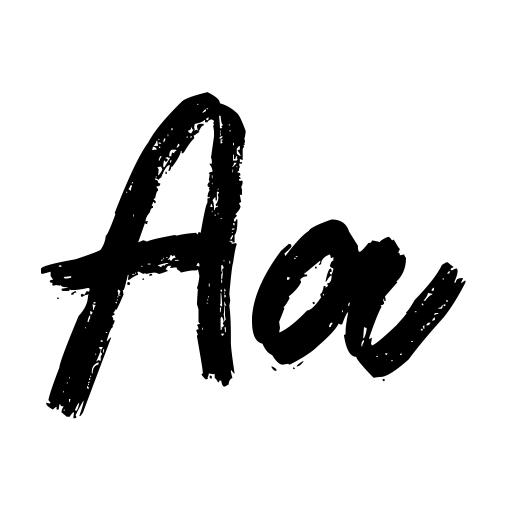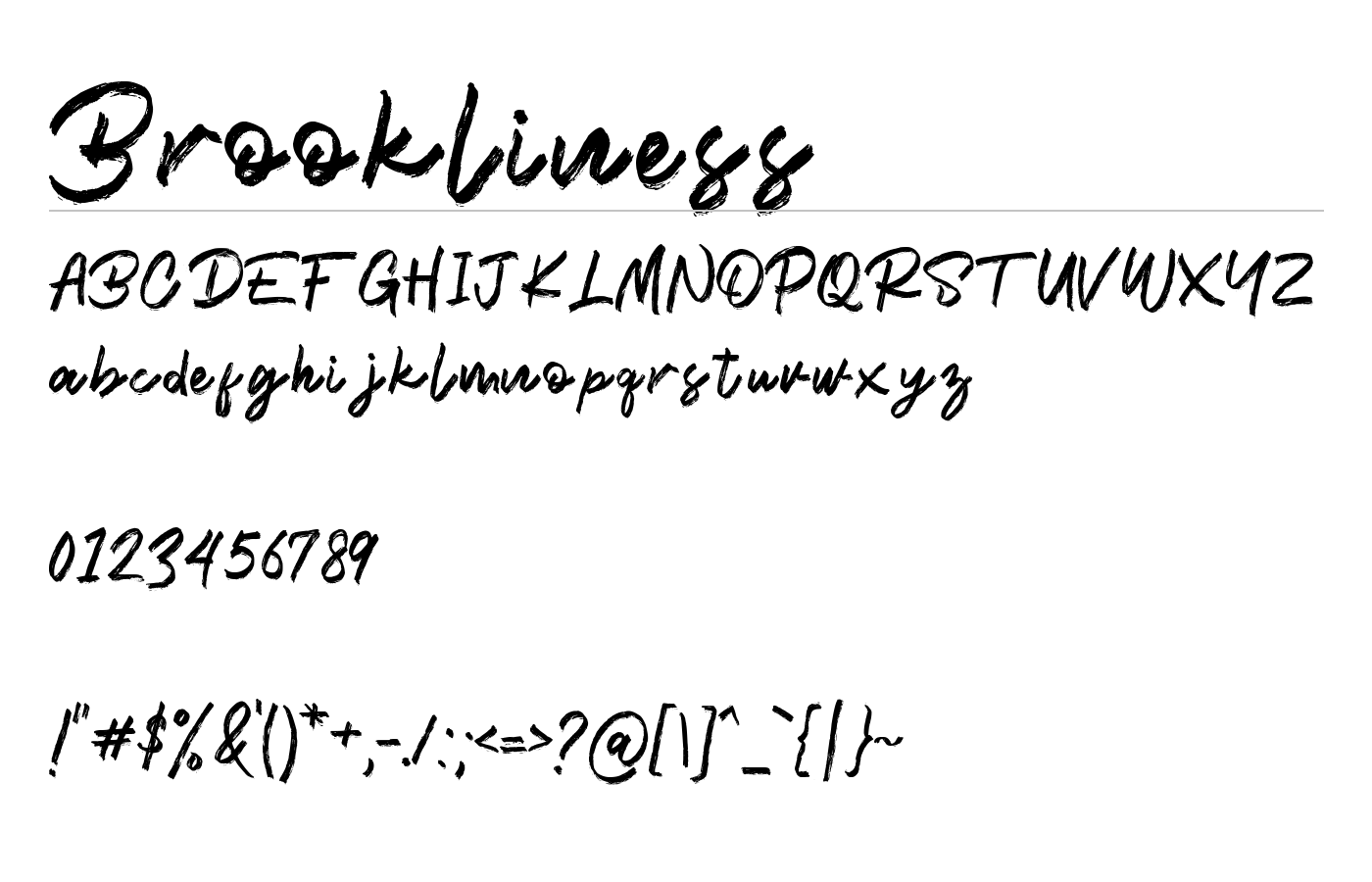
Brookliness is a lively brush script font with a casual, hand-painted feel that combines bold, textured strokes and flowing letterforms. Its energetic style makes it perfect for creative projects, branding, and packaging that seek a personal, artistic touch. This font stands out in headlines or logos where a warm, expressive vibe is desired.
Brookliness Font
About Brookliness Font